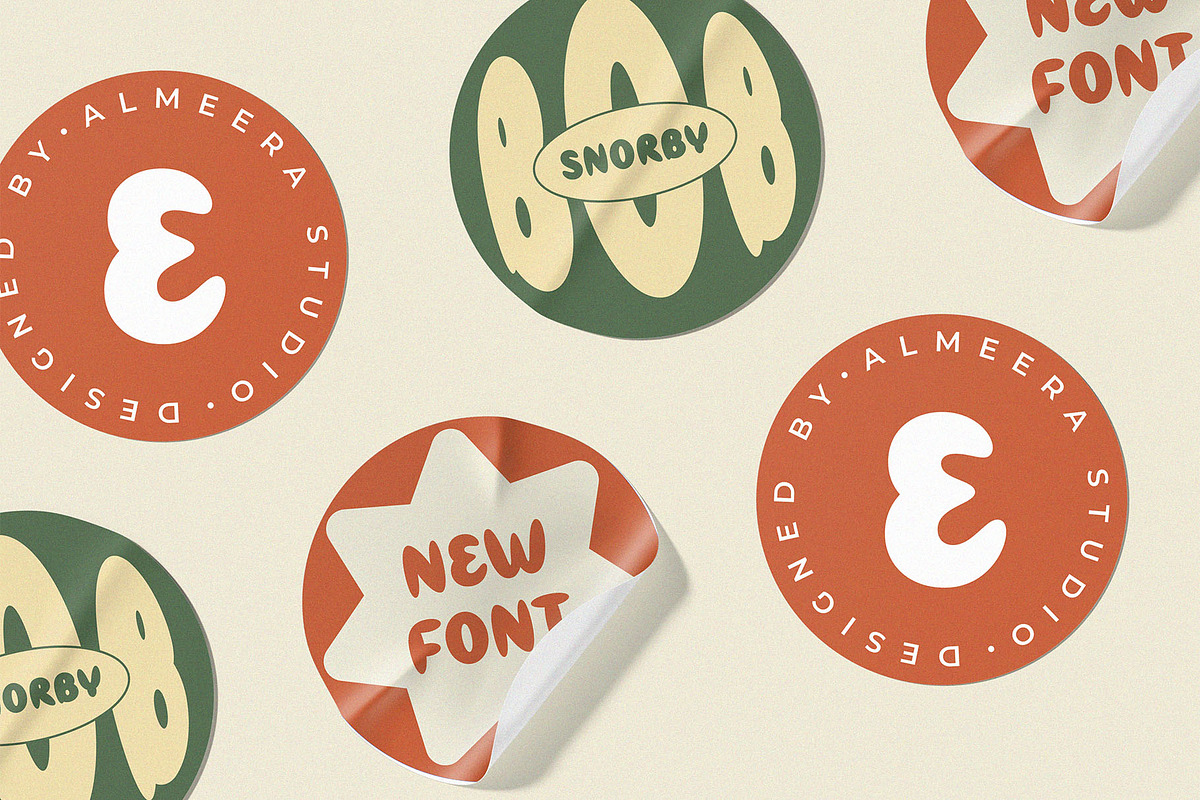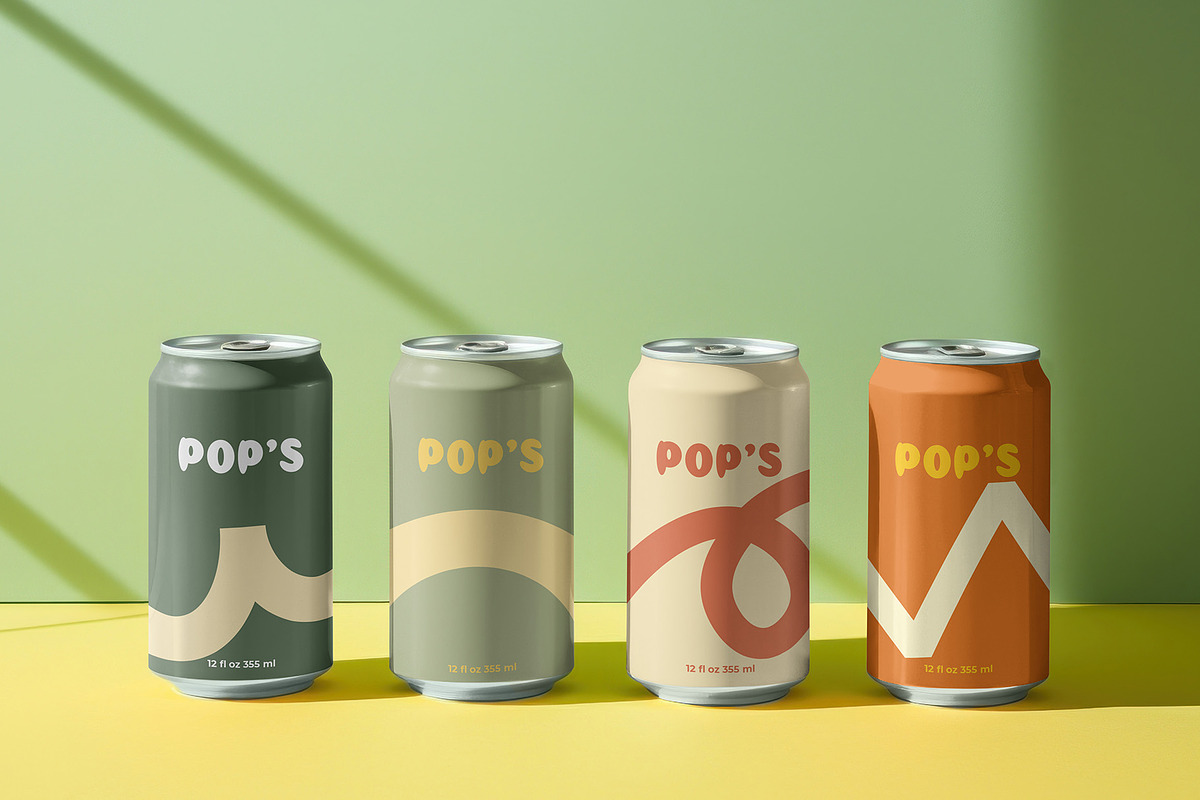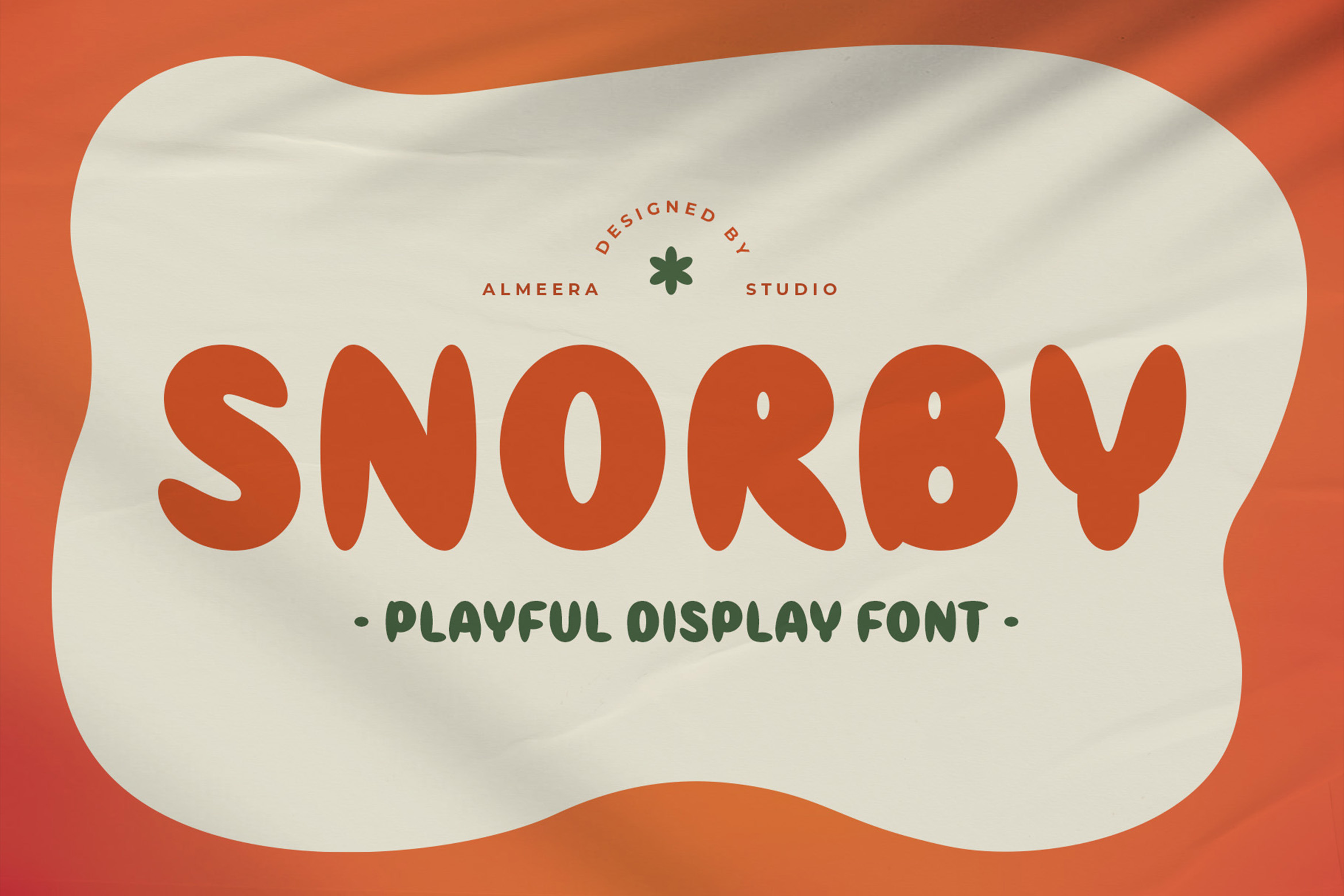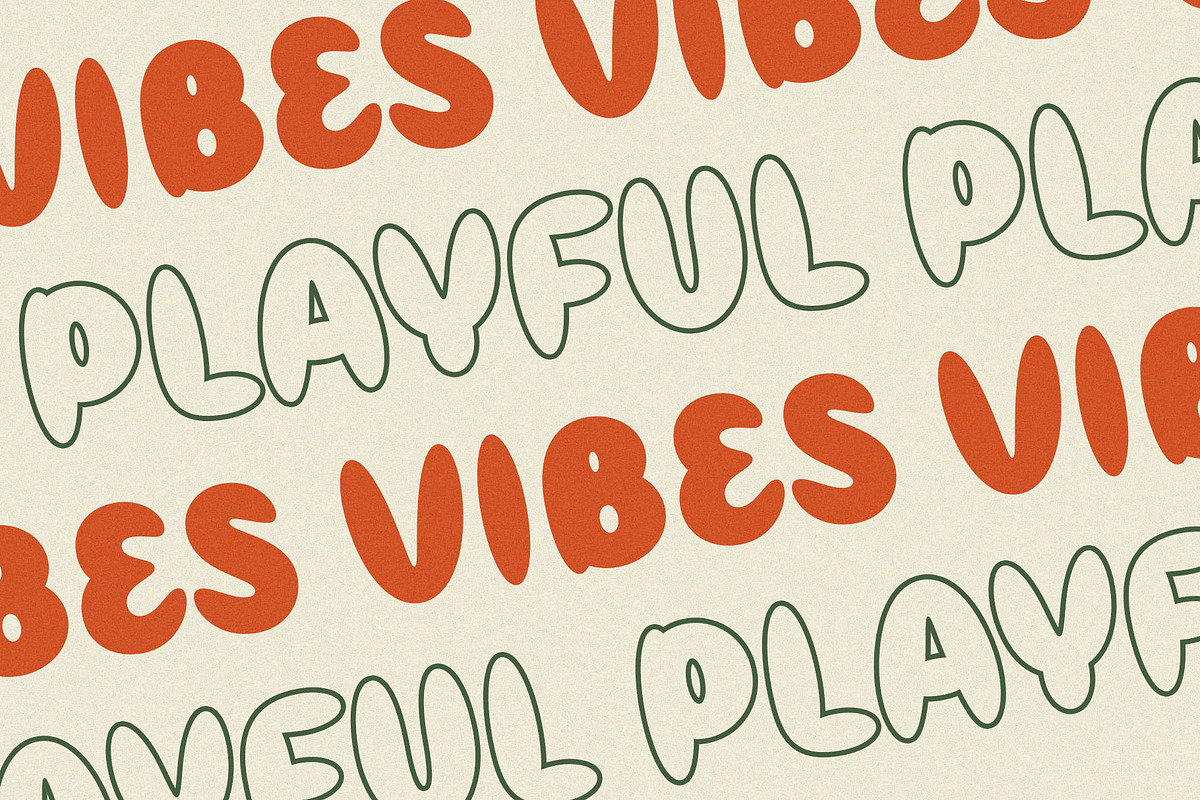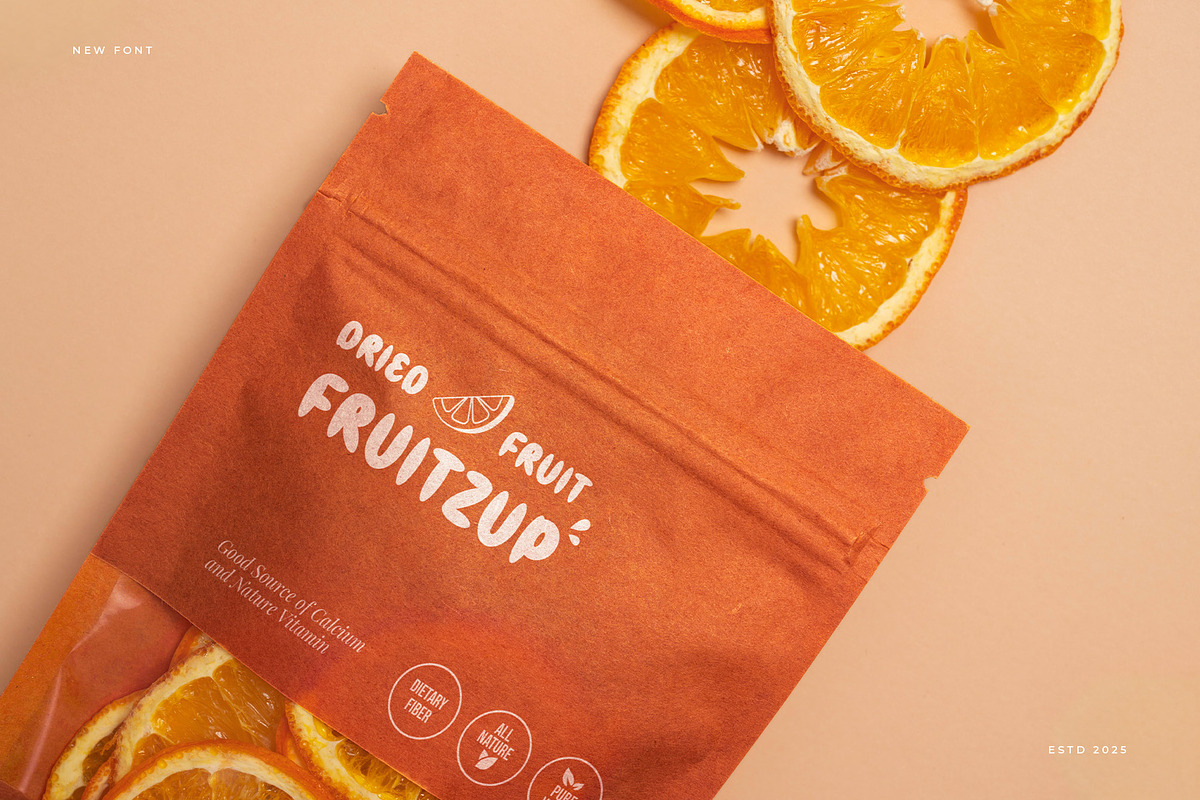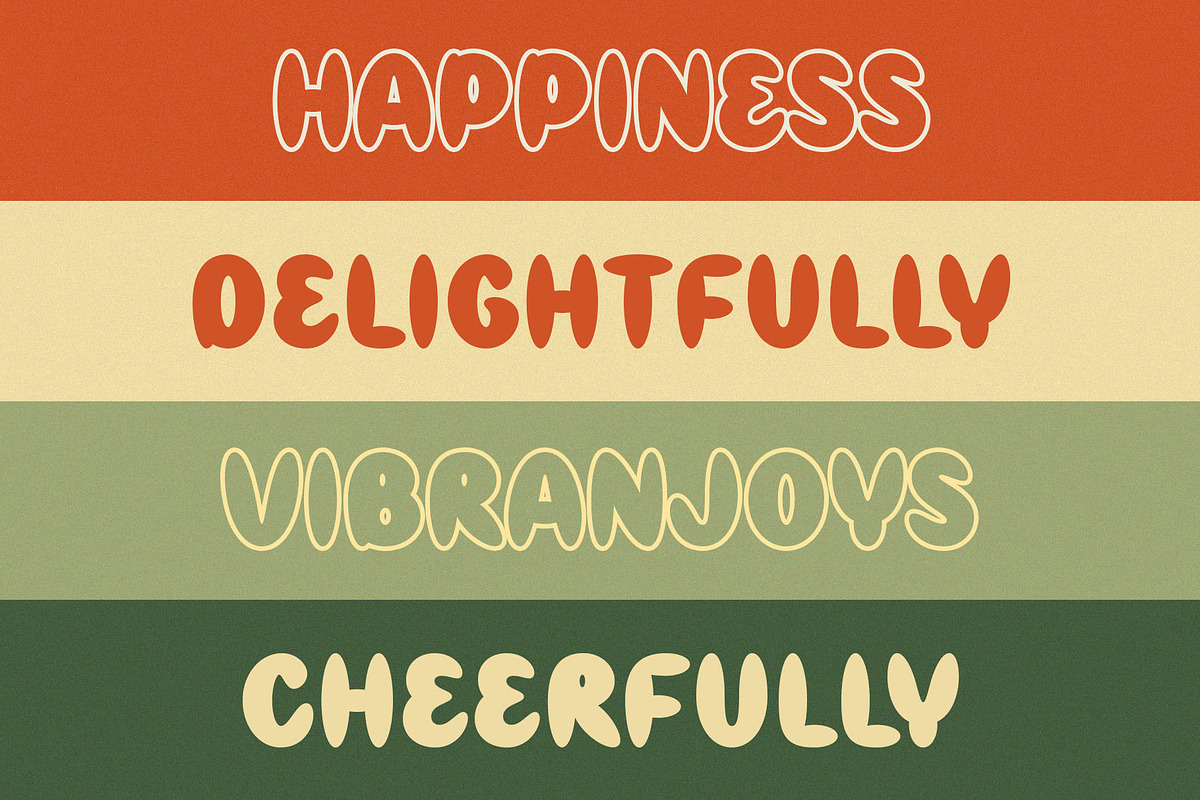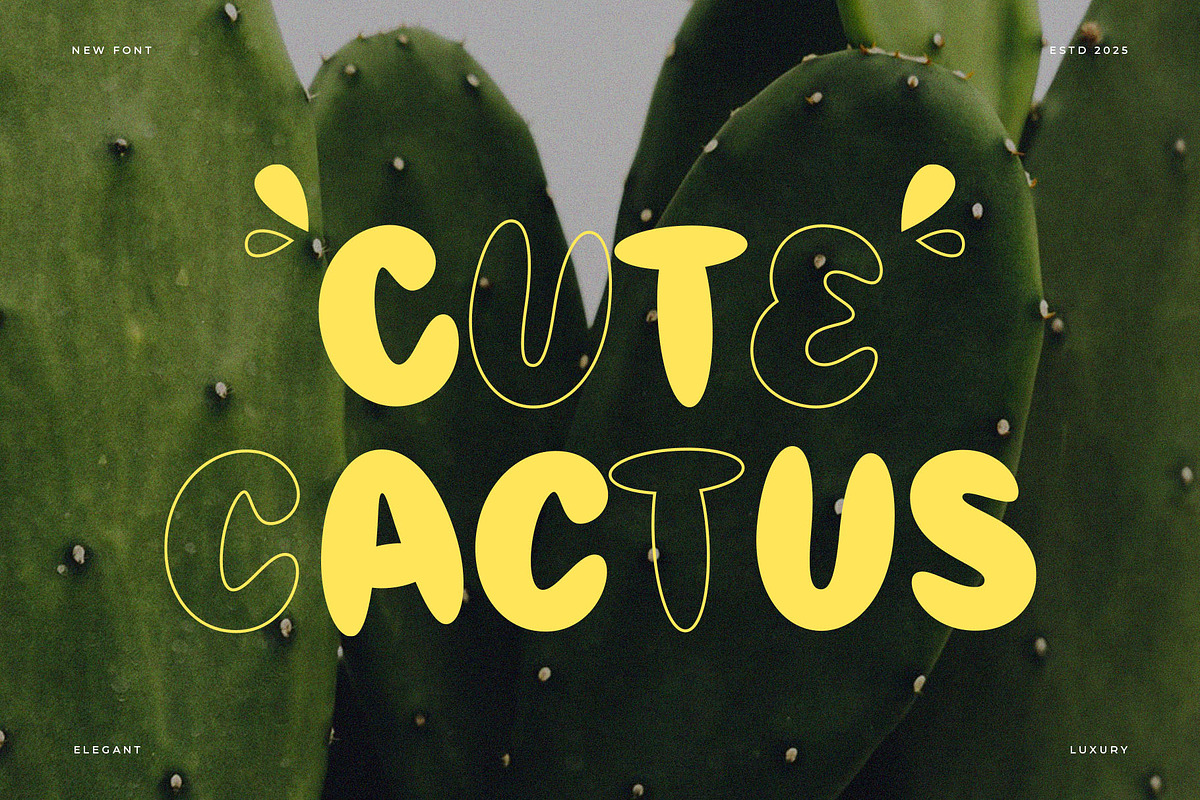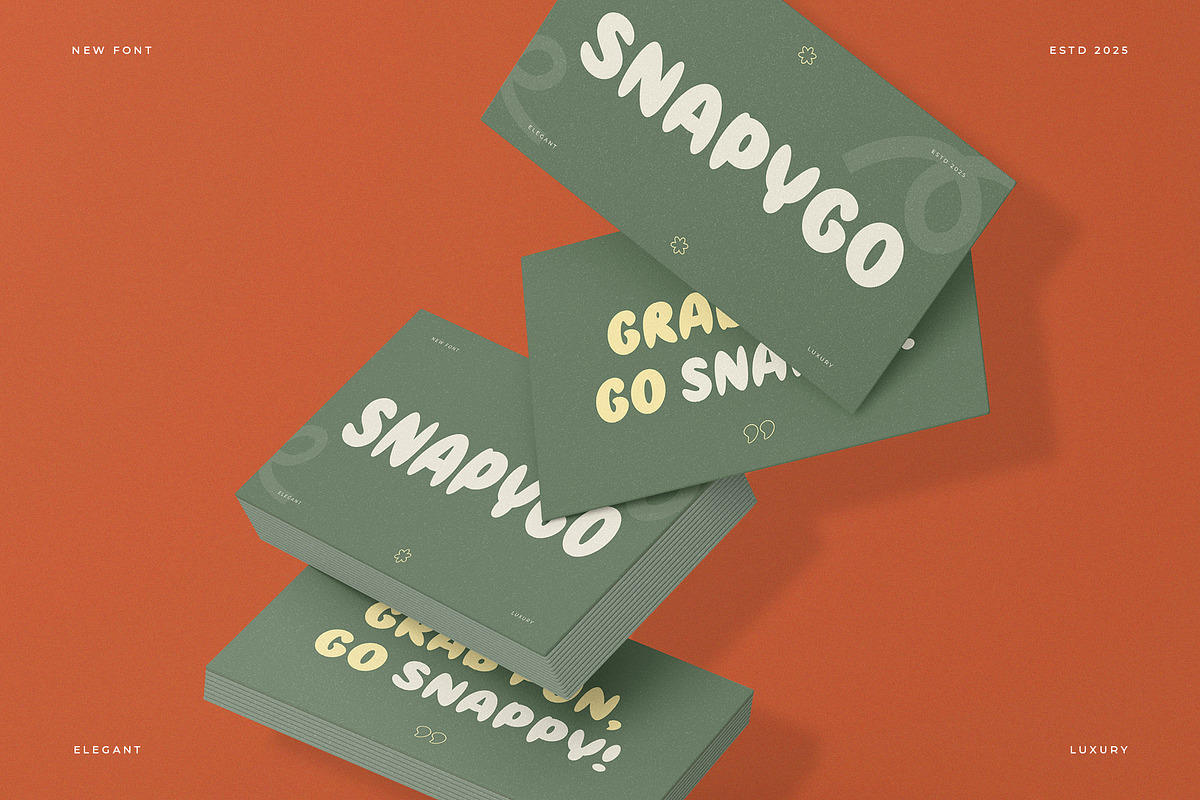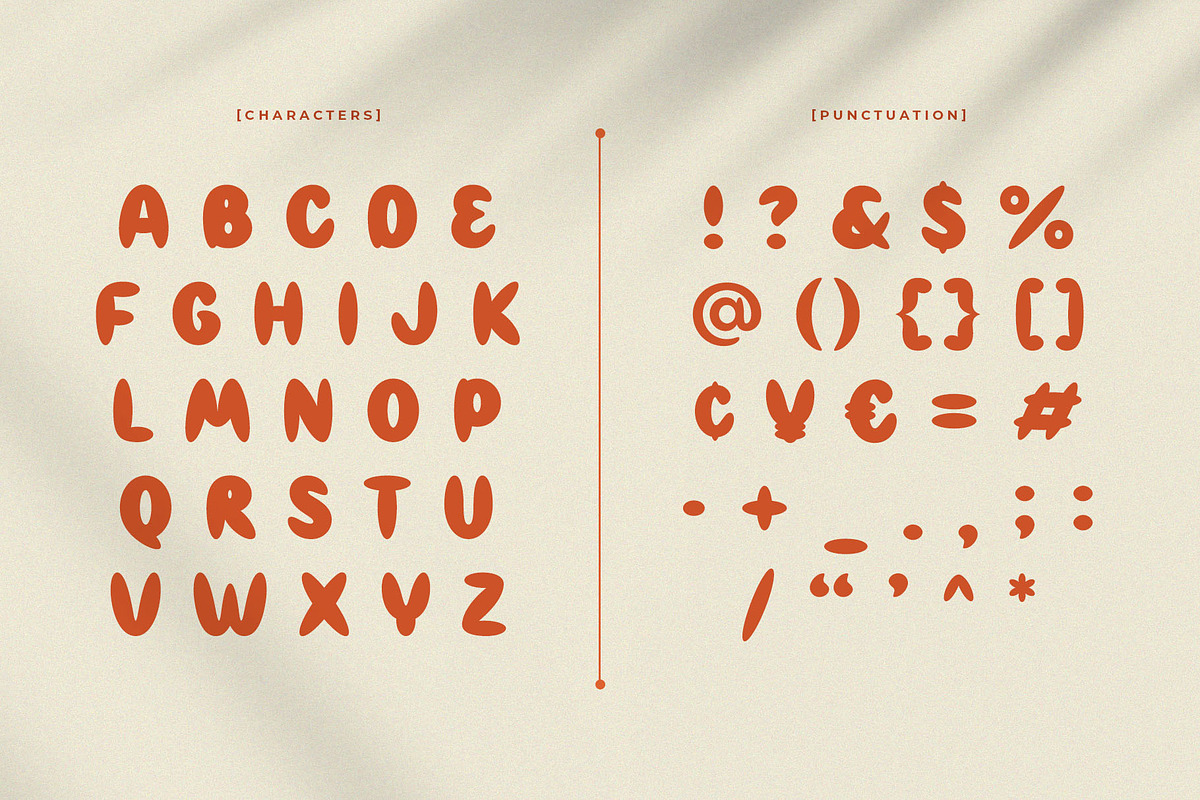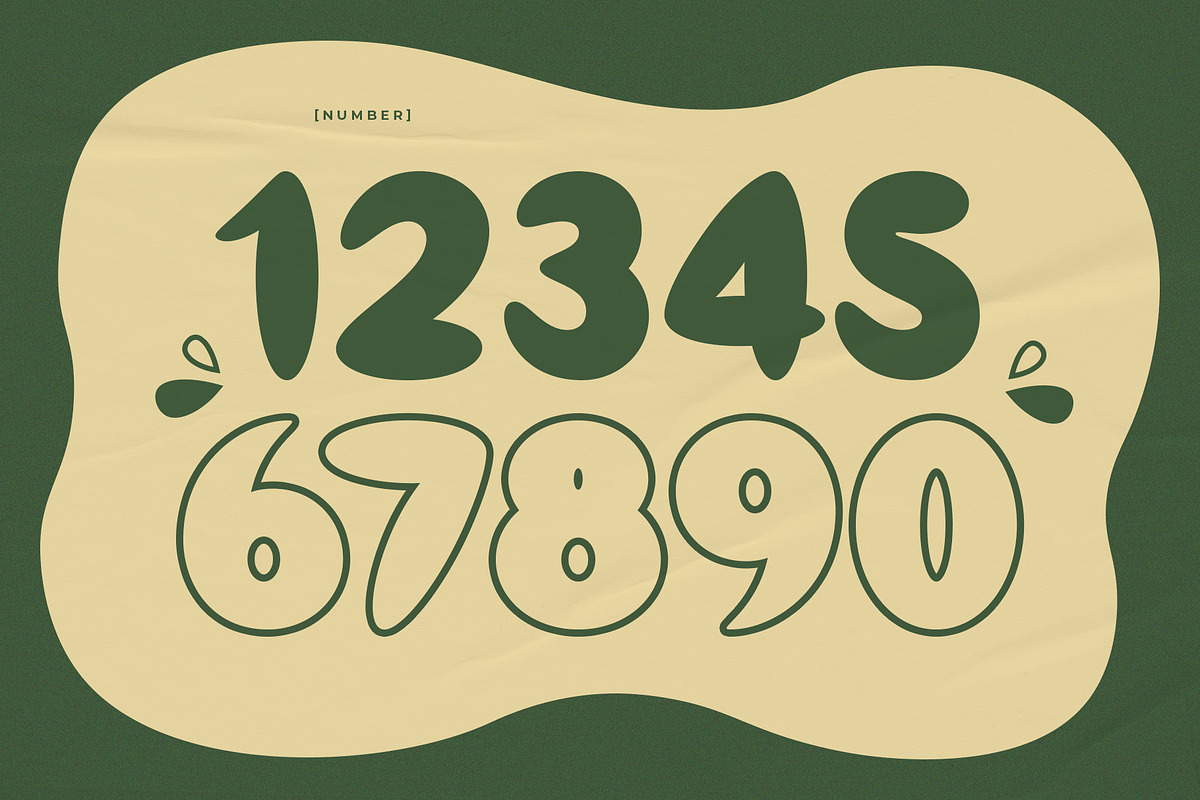
Snorby – Playful Display Font
Snorby is a fun and playful display font with soft curves and friendly character. Its casual hand-drawn look makes it ideal for kids’ projects, branding, packaging, posters, and creative social media content. Snorby brings a warm, approachable, and joyful vibe to your designs, making them instantly more inviting.